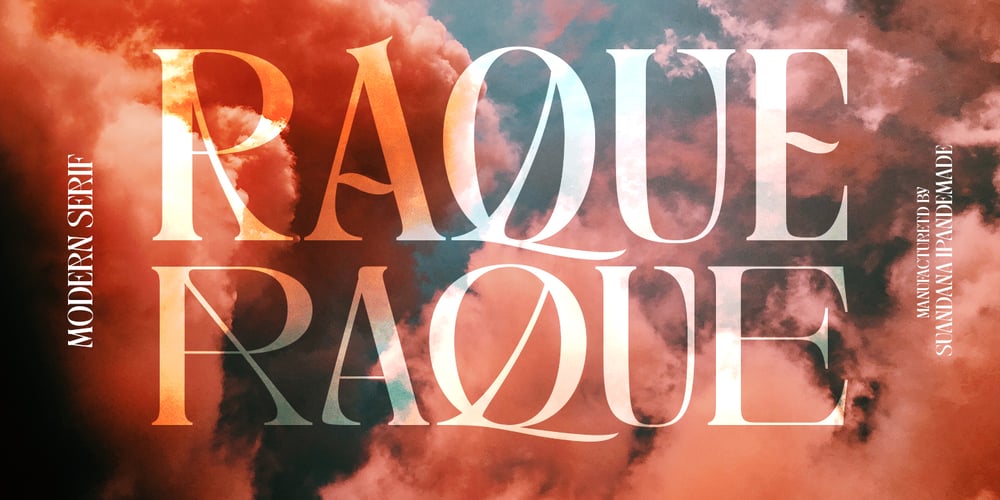
Raque Font Family was designed by Suandana ipandemade, madededuk and published by madeDeduk. Raque contains 1 styles and family package options. Introducing Raque is a Capital Modern Serif, use this font for any branding, product packaging, invitation, quotes, t-shirt, label, poster, logo etc.Feature Uppercase & Lowercase Number & Symbol International Glyphs Multilingual support Alternative Ligature Shoot me on email at: dedukvic@gmail.com and find more previews on my Instagram here : https://www.instagram.com/acekelgondolayu/?hl=enHope you enjoy it.